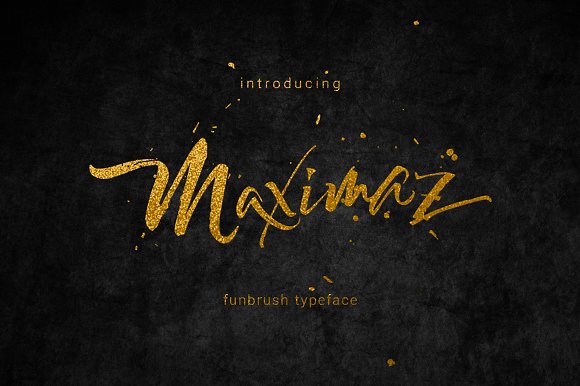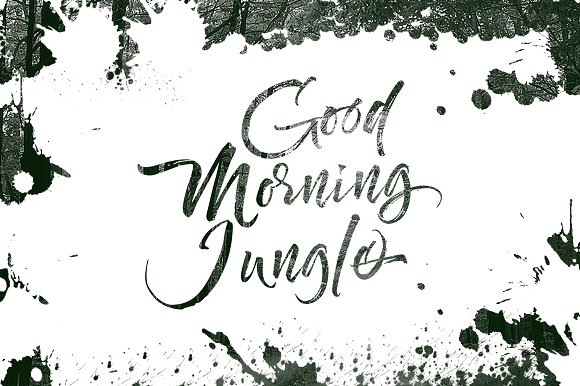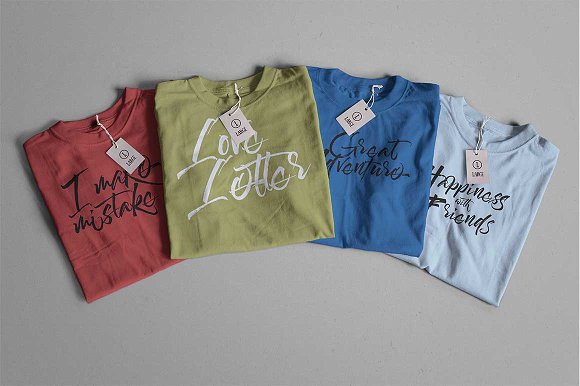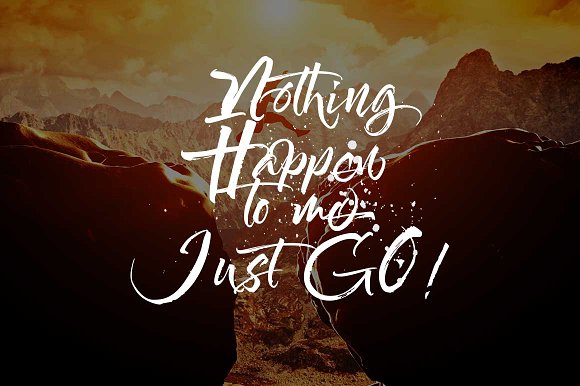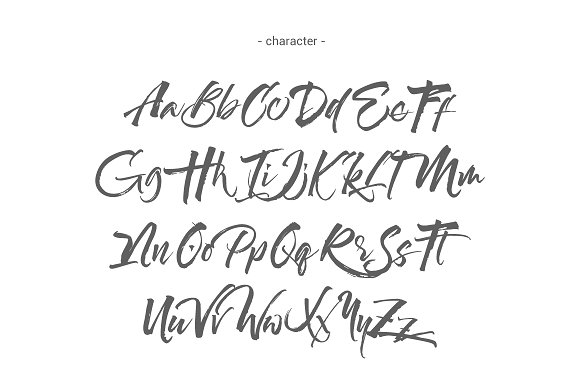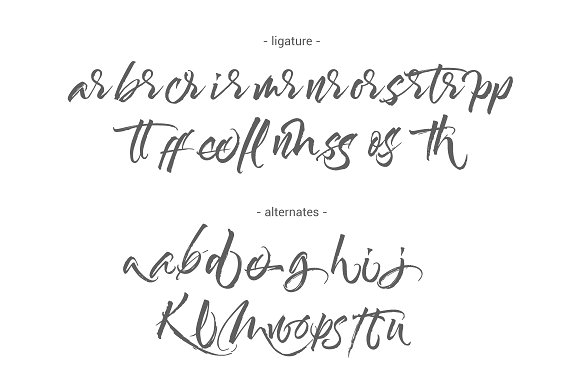
Maximaz Font
About Maximaz Font
Maximaz is a fluid handwritten font that is great for creating personal designs. It’s rough written glyphs make you feel like the text has been written with passion. This is a great font for apparel, print and digital design.